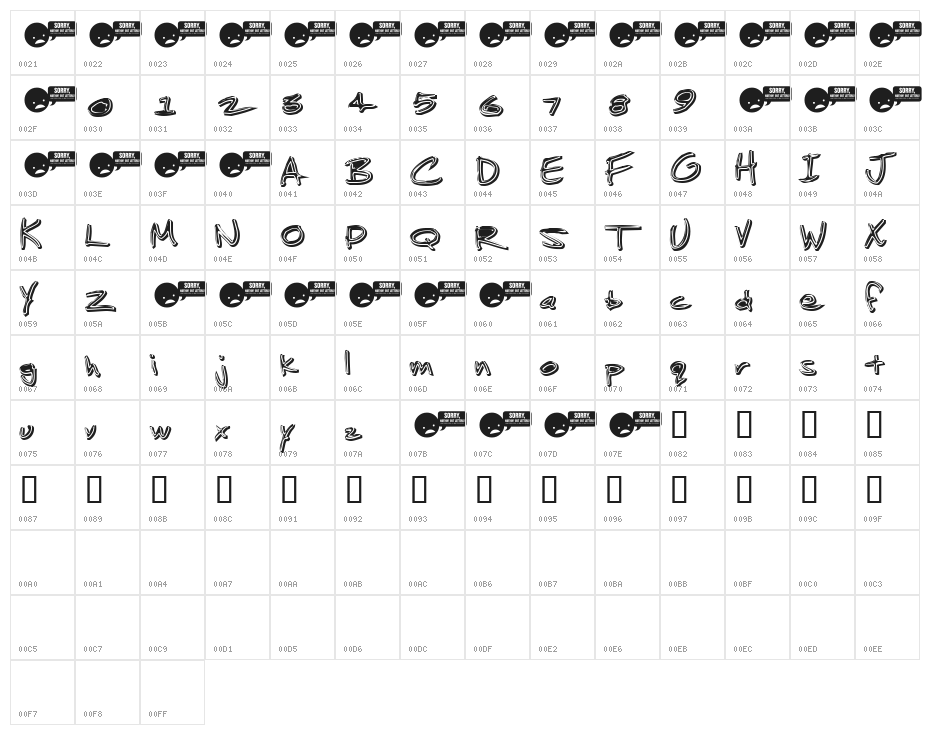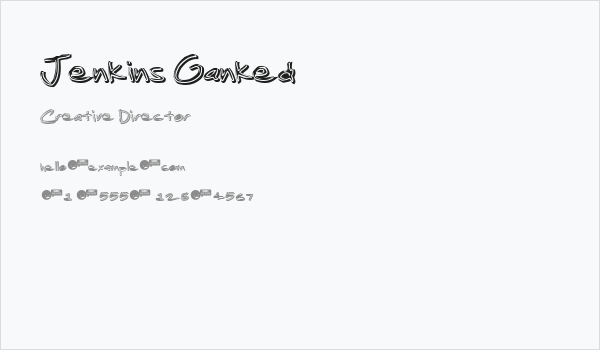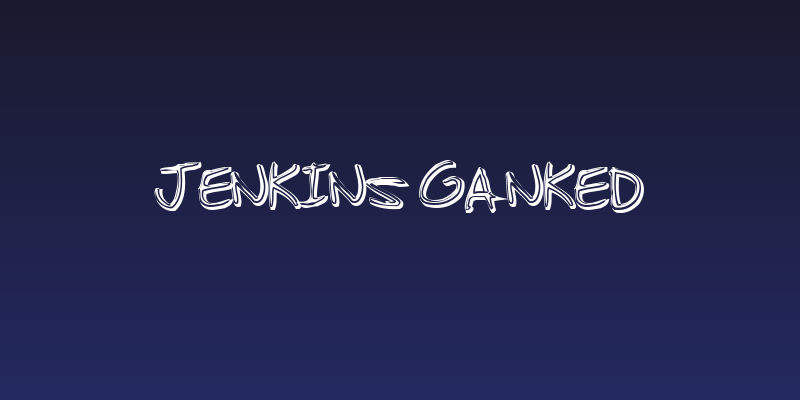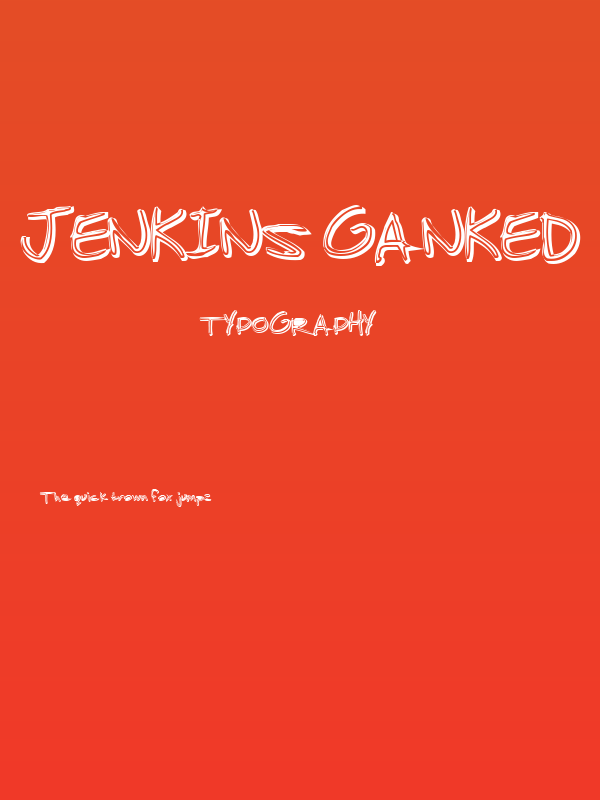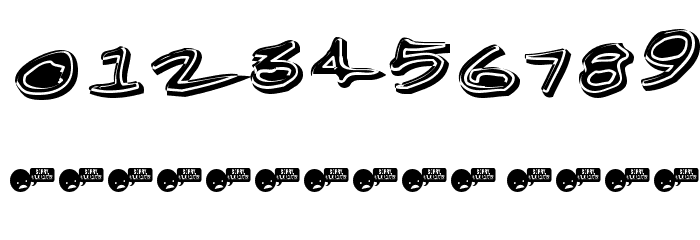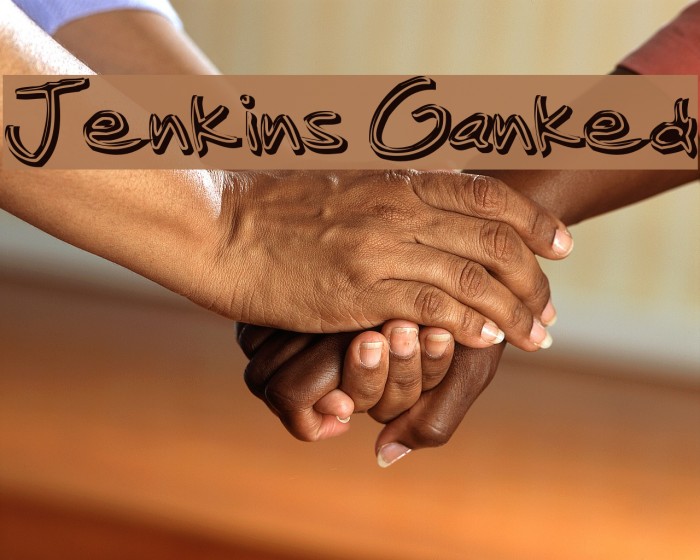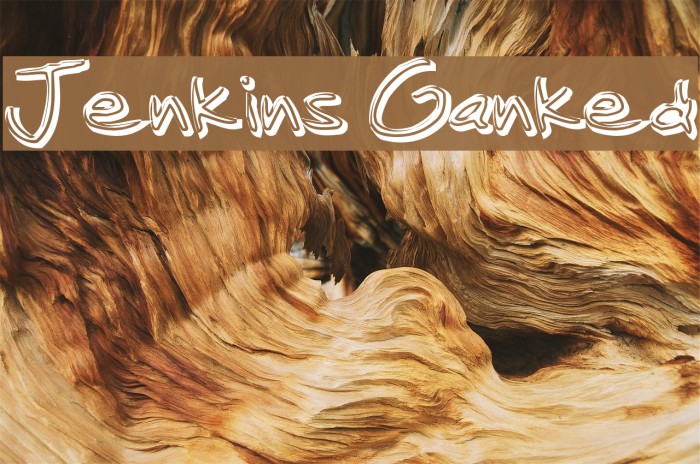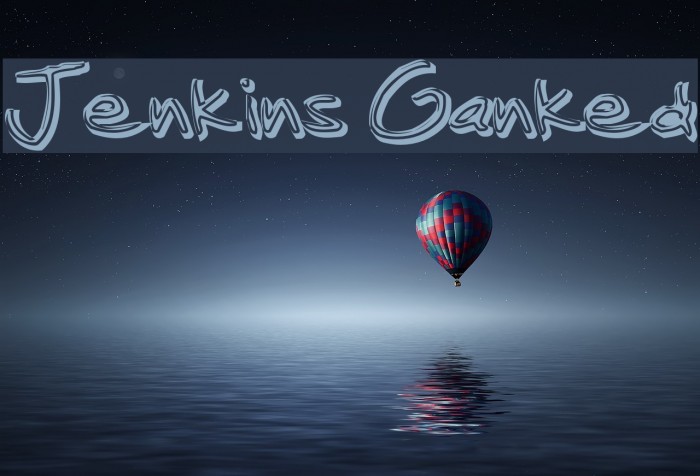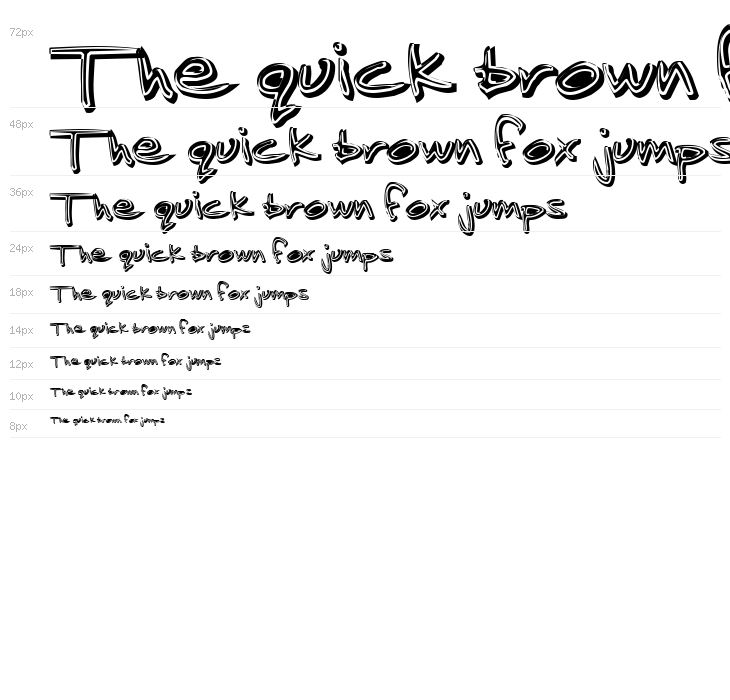
Jenkins Ganked Font
Jenkins Ganked Description
This font features a bold and energetic style with a graffiti-like appearance. The letters are outlined with a thick, black stroke that gives them a three-dimensional effect. The characters have a playful and dynamic feel, with irregular shapes and varying line thicknesses that add to the overall urban and edgy aesthetic. The font is highly decorative, making it suitable for projects that require a strong visual impact. Its unique style is reminiscent of street art, making it ideal for creative and unconventional designs.
| Overall Style | Urban, Edgy, Playful |
| Use Case | Logos, Posters, Album Covers |
| Proposed Projects | Ideal for street art designs, urban-themed posters, music album covers, and creative branding projects. |